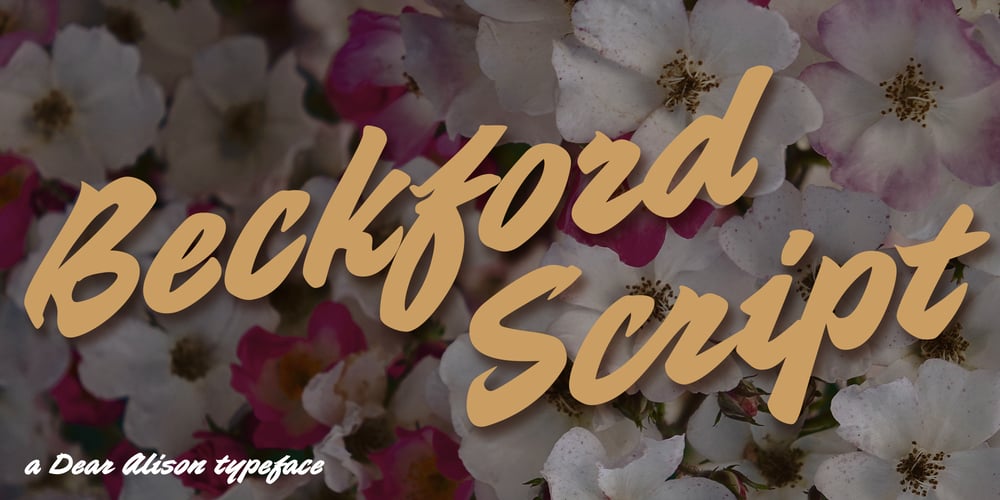
Beckford Script
Beckford Script font
Beckford Script Font Family was designed by Alison Argento and published by Dear Alison. Beckford Script contains 1 styles and family package options. Brush lettered scripts have such a quick expressive quality to them and have amazed me since I was a little girl. The quick whip of the wrist can make or break a letterform so easily. They are filled with personality and visual flavor. Beckford Script taps into that association and brings a quick handed sassiness reminiscent of vintage travel brochures and old pulp and romance novels. But for whatever you might need this script for, you’ll find it up for the task. Spice up your font collection and pick up Beckford Script today!